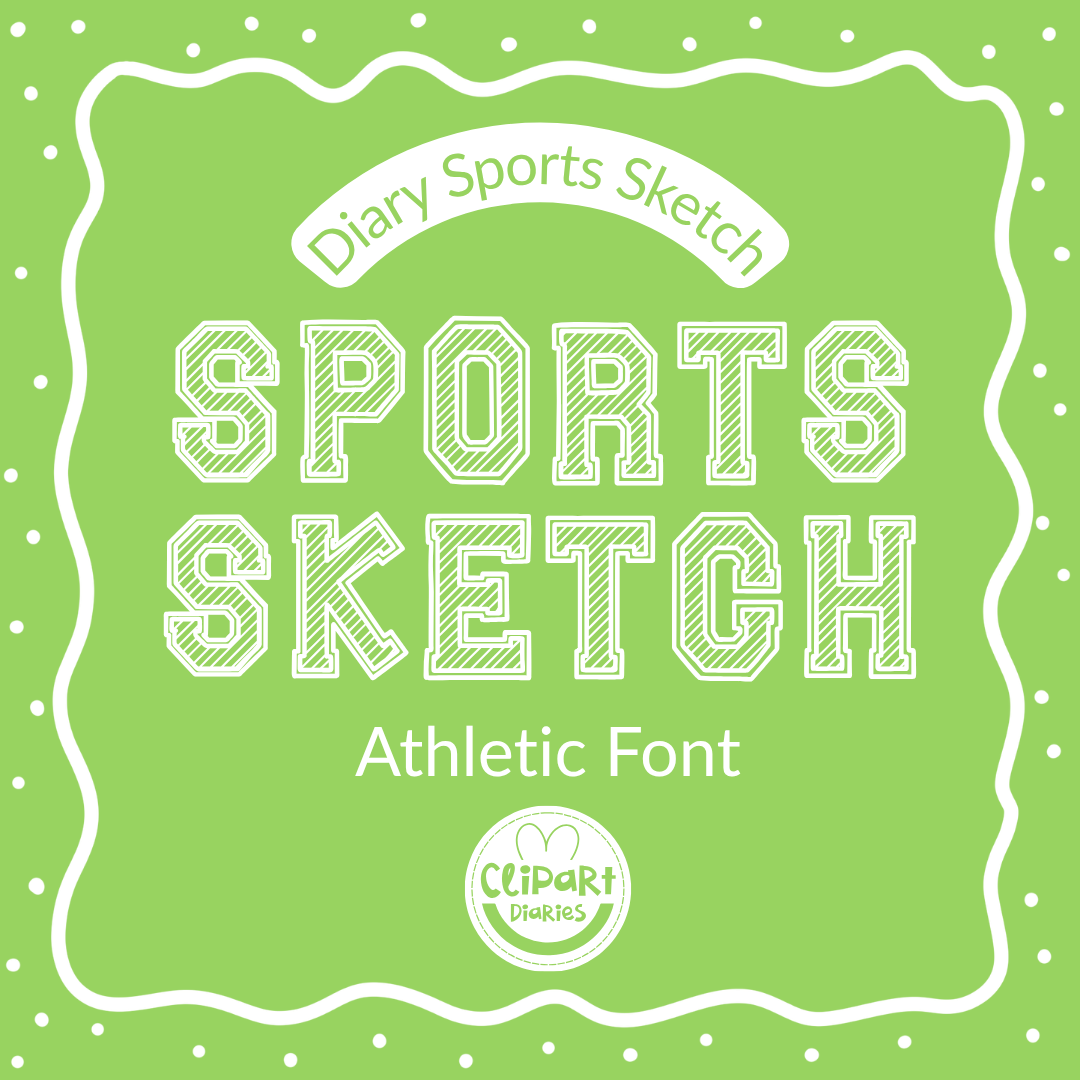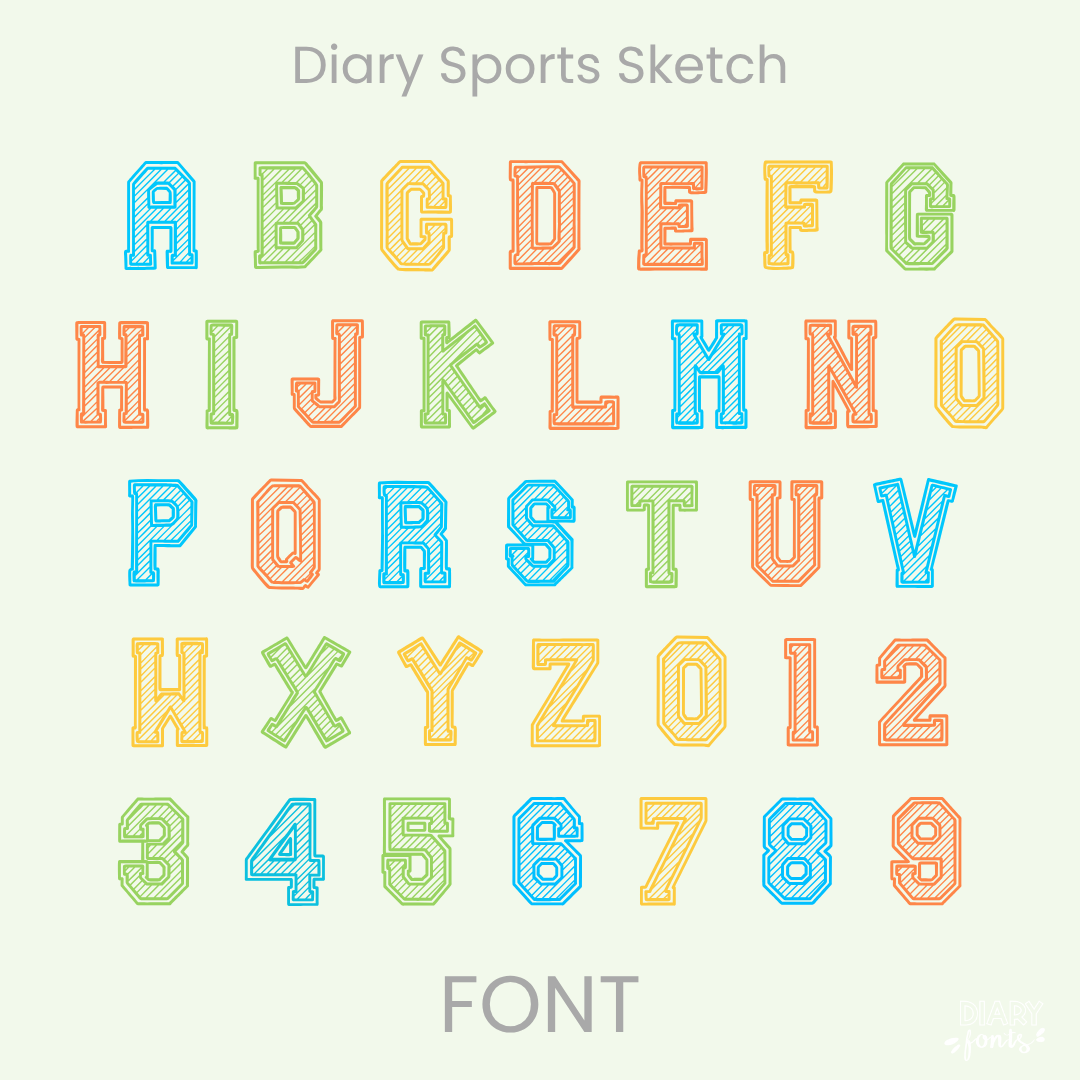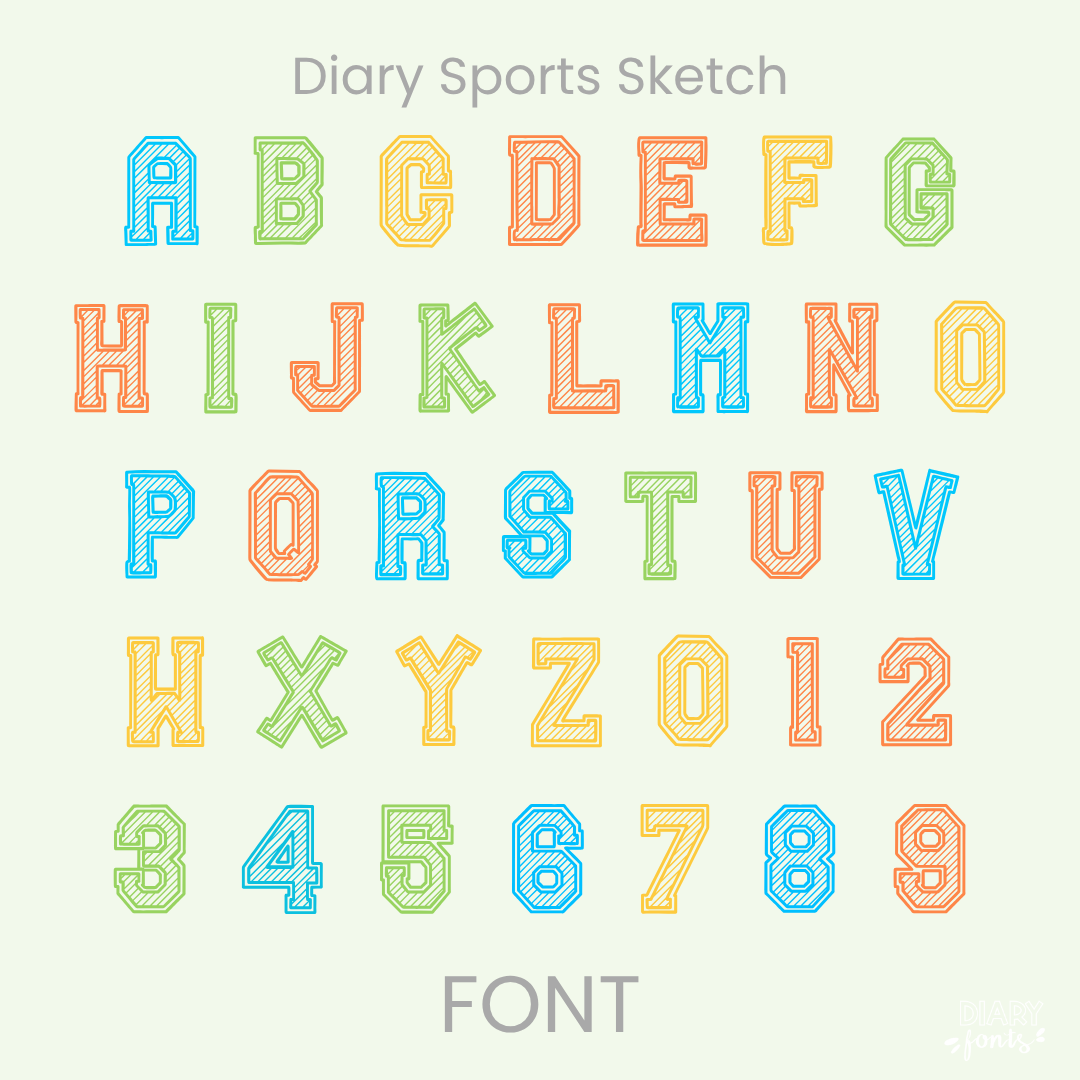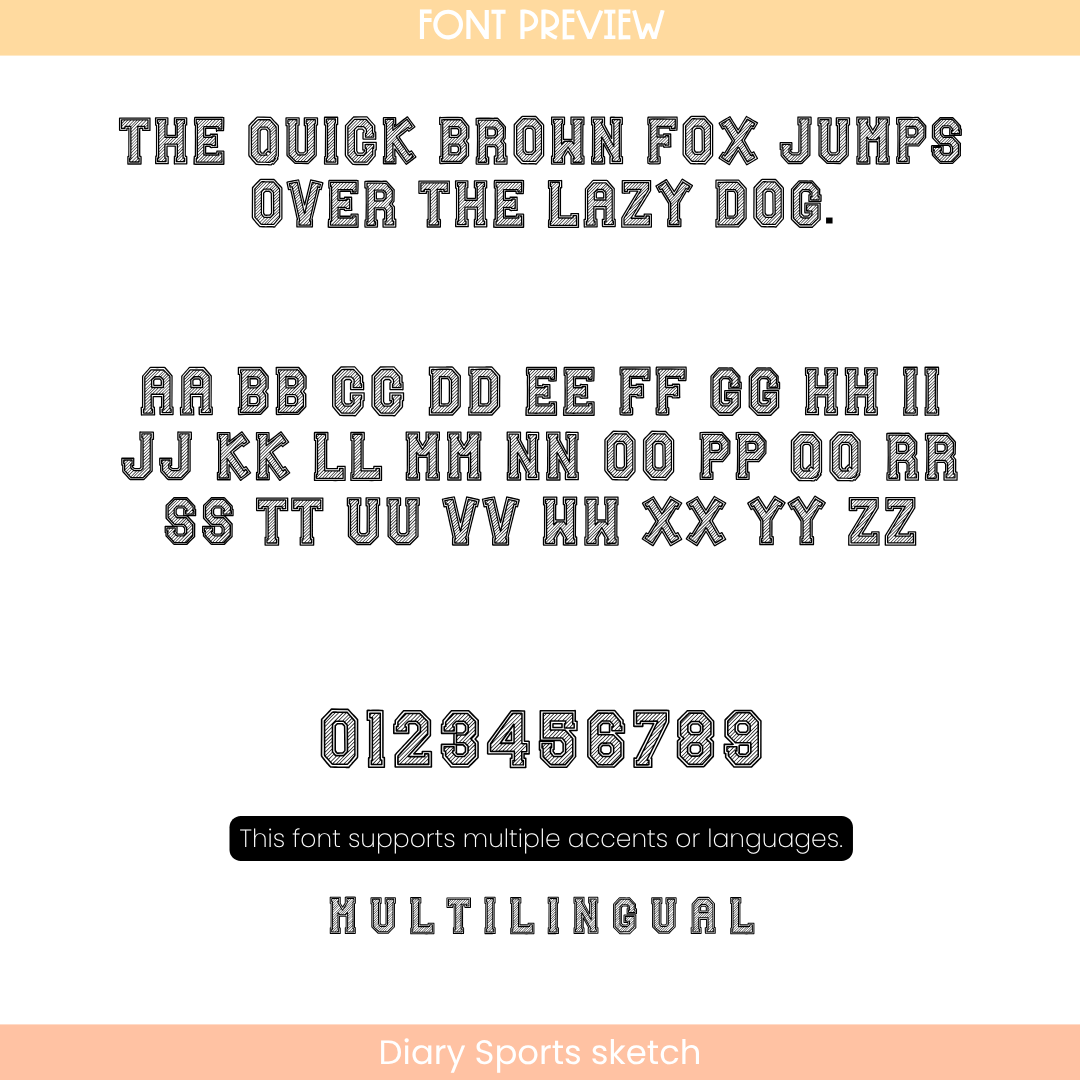
Diary Sports Sketch – Athletic Sport Font
Diary Sports sketch is that varsity-style sketched font and textured collegiate print typeface you need to bring a high-energy, hand-drawn athletic look to your classroom resource designs and school events!
If you’ve been looking for that perfect athletic teacher font to add a splash of creative school spirit to your layouts, Diary Sports sketch is about to become your new absolute favorite design tool. This typeface takes the classic, structured geometry of a traditional collegiate block font and fills it with a cool, hand-drawn sketch texture wrapped in a sharp double-outline. Standing tall and confident straight along the baseline, its beautifully detailed design cuts right through the background clutter, making your display titles exceptionally clear and legible worksheet typography for your sweet students to read from anywhere in the room.
It is an absolute dream choice for designing standout school sports team shirts, field day awards, pep rally banners, morning meeting presentation titles, and athletic bulletin board headers. Inside the download, you’ll get a full set of sketched college block letters, clean matching textured numbers, and multi-accent markings for complete multilingual support. It drops right into Canva, MS Office, or Adobe on your desktop, and pairs beautifully with Procreate and GoodNotes on your iPad. Whether you’re prepping a dynamic layout for your own sweet students or crafting a bold new commercial-use product line for your online teacher shop, this sketchy varsity lettering adds a touch of confident, friendly style to your creative toolkit.